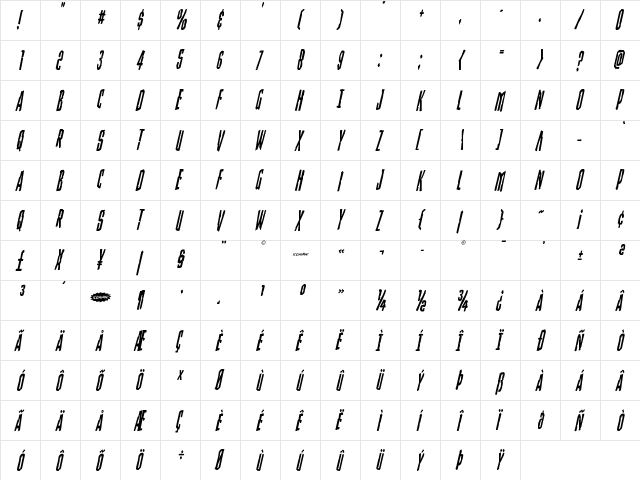
Stranger Danger Condensed Italic Font Preview
Design Context for Stranger Danger Condensed Italic Typeface
Stranger Danger Condensed Italic offers clean, dependable letterforms without strong stylistic allegiance, making it a practical choice for designers who need flexibility. Its italic angle brings a sense of urgency and motion to the letterforms. Its narrow stance lets it pack a punch even in space-constrained designs.
Pro Tip: Use Stranger Danger Condensed Italic for emphasis, pull quotes, and subheadings where its slanted energy can add rhythm to the layout.